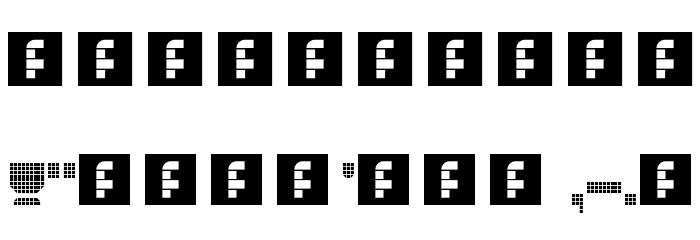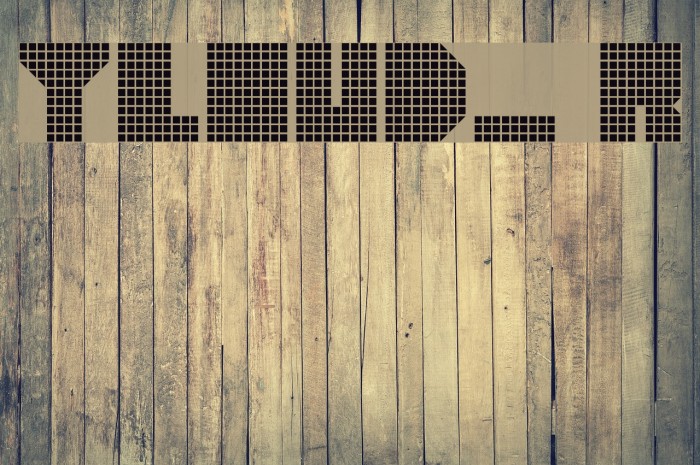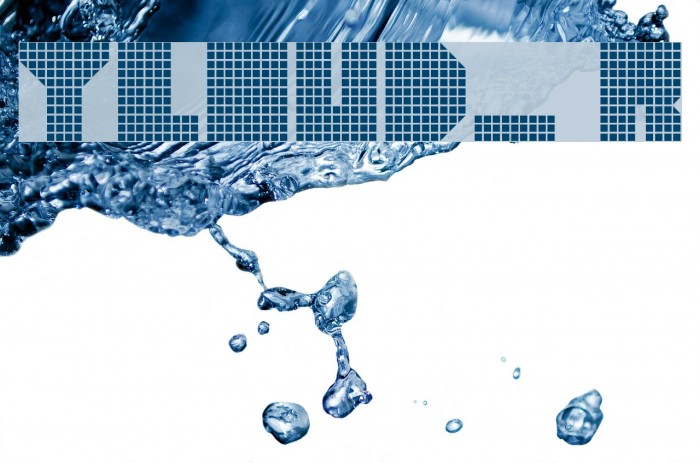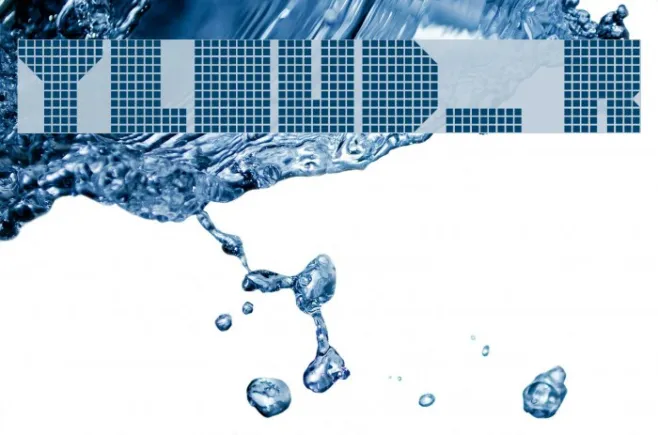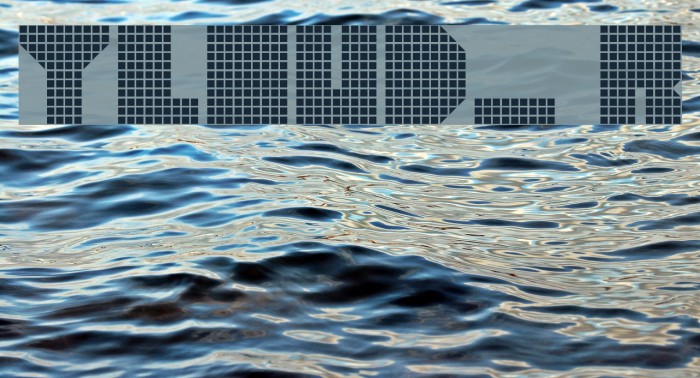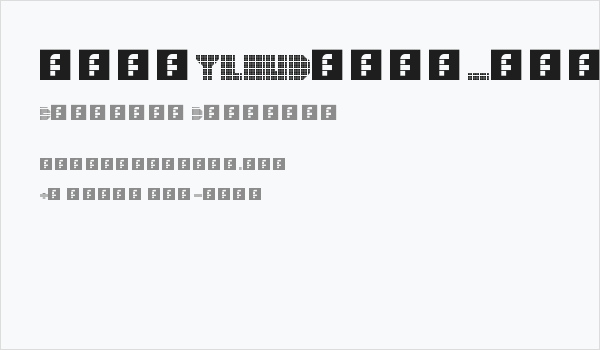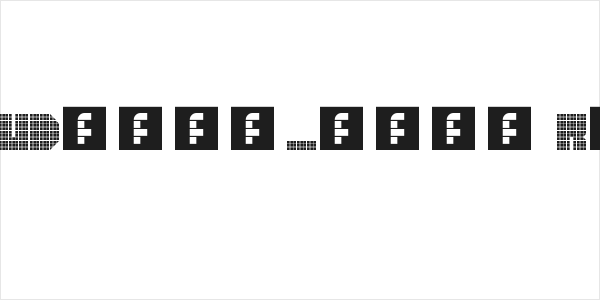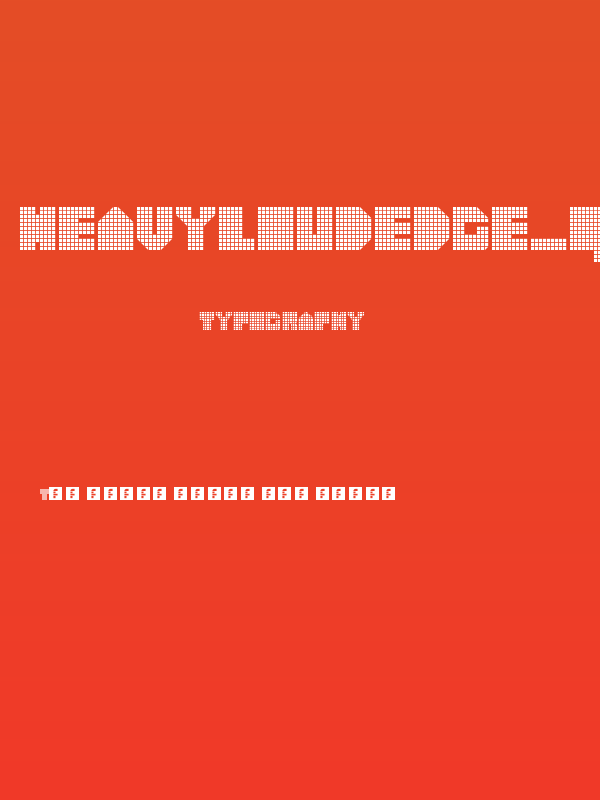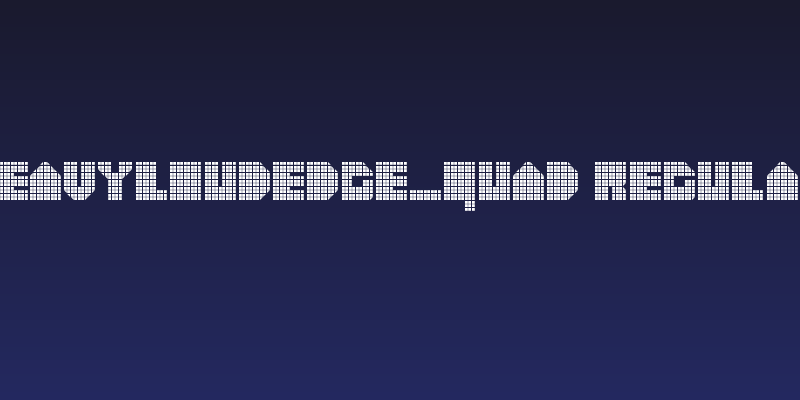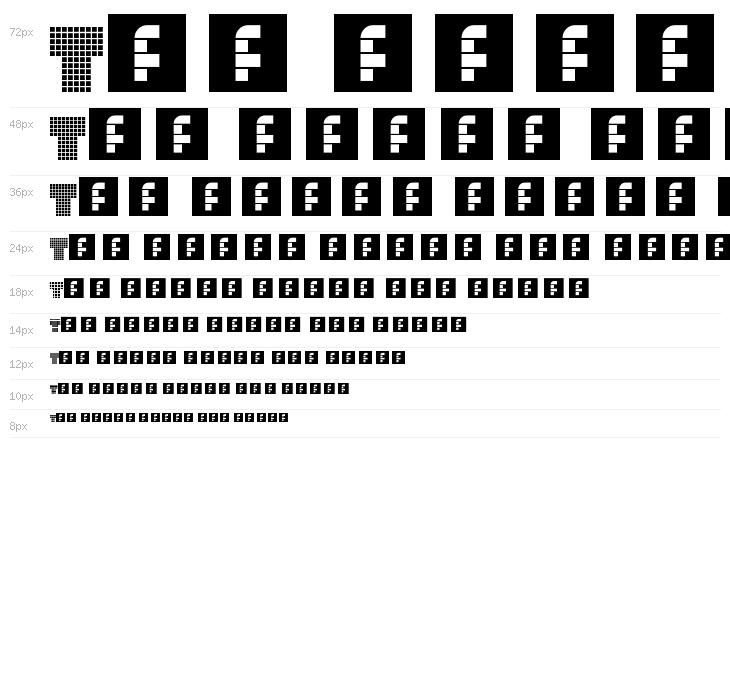
heavyLOUDedge_quad Regular Font
heavyLOUDedge_quad Regular Description
This font features a bold, geometric design with a distinct pixelated or grid-like appearance. Each character is constructed from a series of small squares, creating a digital, retro aesthetic reminiscent of early computer graphics or LED displays. The uppercase letters are particularly striking, with a blocky, robust form that commands attention. The lowercase letters maintain this grid structure, offering a consistent look across the typeface. Numbers and special characters follow the same design principles, ensuring uniformity. This font's unique style makes it ideal for projects that require a modern yet nostalgic feel.
| Overall Style | Modern, Retro |
| Use Case | Headlines, Logos, Digital Art |
| Proposed Projects | Ideal for digital art, retro-themed designs, video game graphics, and tech-related branding. |